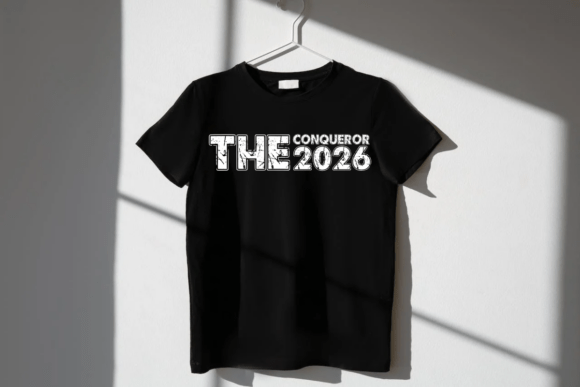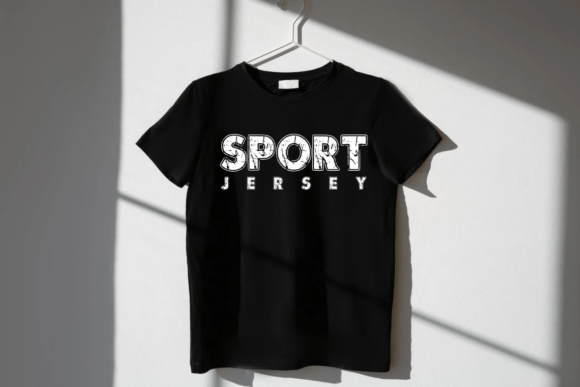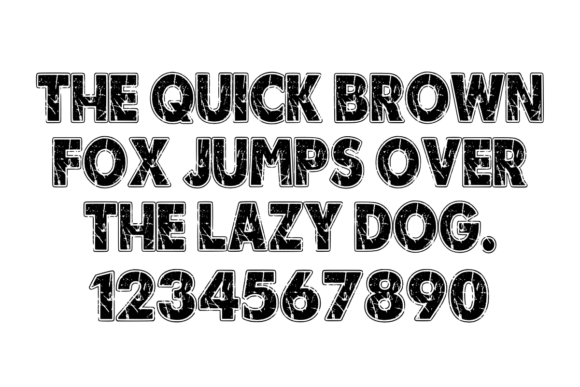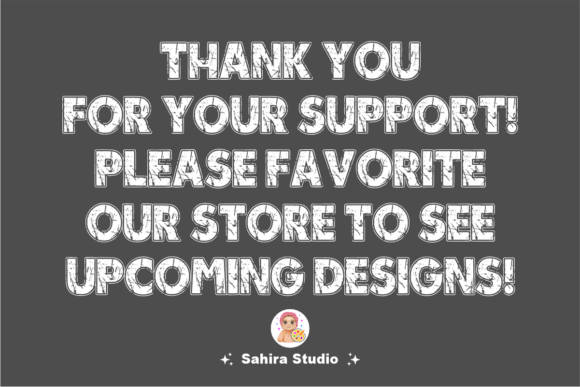
Unleash Your Inner Warrior with Black Combat Font
Prepare for battle with Black Combat font, a heavy-duty, grunge-textured display typeface built for grit and intensity. This rugged Black Combat typeface features weathered, distressed edges and a massive block structure that screams toughness and resilience. Ideal for gaming clans, military-themed apparel, fitness branding, and action movie posters, the Black Combat font brings an uncompromising energy to your work.
The Power of Grunge Texture
The Black Combat font boasts a unique “premium grunge” effect that adds a layer of realism and depth to the letters. The weathered, distressed edges give the impression that the letters have been stamped onto weathered metal or concrete, adding a sense of ruggedness and authenticity to your designs. This texture is perfect for creating a visual identity that is as fierce as it is unforgettable.
Design Features and Capabilities
The Black Combat font features a massive block structure that makes it perfect for headlines, titles, and short phrases. The font’s bold and condensed style ensures that your message is conveyed with clarity and impact, making it ideal for creating attention-grabbing designs. The font’s versatility also makes it suitable for a wide range of applications, from digital designs to print materials.
Ideal Applications for Black Combat Font
The Black Combat font is perfect for designers and crafters looking to create bold and edgy designs. Some ideal applications for this font include:
- Gaming clans: Create bold and intimidating logos, jerseys, and marketing materials that reflect your team’s toughness and resilience.
- Military-themed apparel: Design authentic and rugged clothing and accessories that reflect the bravery and sacrifice of military personnel.
- Fitness branding: Create bold and motivational branding materials that inspire and energize your audience.
- Action movie posters: Add an extra layer of grit and intensity to your movie posters and trailers with this rugged and attention-grabbing font.
Design Tips and Tricks
To get the most out of the Black Combat font, here are some design tips and tricks to keep in mind:
- Pair it with dark, industrial textures: Combine the Black Combat font with dark, gritty textures to create a visual identity that is as tough as it is industrial.
- Use high-contrast photography: Pair the font with high-contrast photography to create a striking visual contrast that grabs attention.
- Experiment with colors: Try pairing the font with bold and bright colors to create a striking visual identity that pops.
Why Choose Black Combat Font?
So why choose the Black Combat font for your next design project? Here are just a few reasons:
- Unique and authentic grunge texture: The Black Combat font features a unique and authentic grunge texture that adds a layer of realism and depth to your designs.
- Versatile and flexible: The font is versatile and flexible, making it suitable for a wide range of applications and design projects.
- Attention-grabbing and bold: The font’s bold and condensed style ensures that your message is conveyed with clarity and impact, making it ideal for creating attention-grabbing designs.
In conclusion, the Black Combat font is a heavy-duty, grunge-textured display typeface that is perfect for designers and crafters looking to create bold and edgy designs. With its unique “premium grunge” effect, massive block structure, and versatility, this font is ideal for a wide range of applications, from gaming clans to action movie posters. So why wait? Unleash your inner warrior and get ready to create designs that are as fierce as they are unforgettable with the Black Combat font.